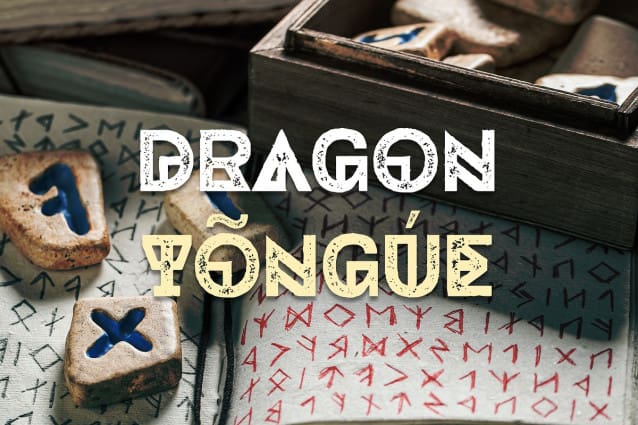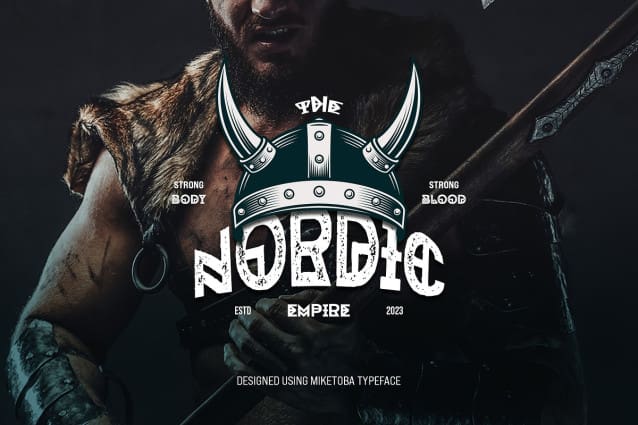
Miketoba Display Font
Miketoba Display Font – Ancient Display Font. This unique typeface is a tribute to the timeless beauty of ancient scripts and inscriptions. “Miketoba” brings a touch of history and sophistication to your designs, making it ideal for projects where heritage and authenticity are paramount.